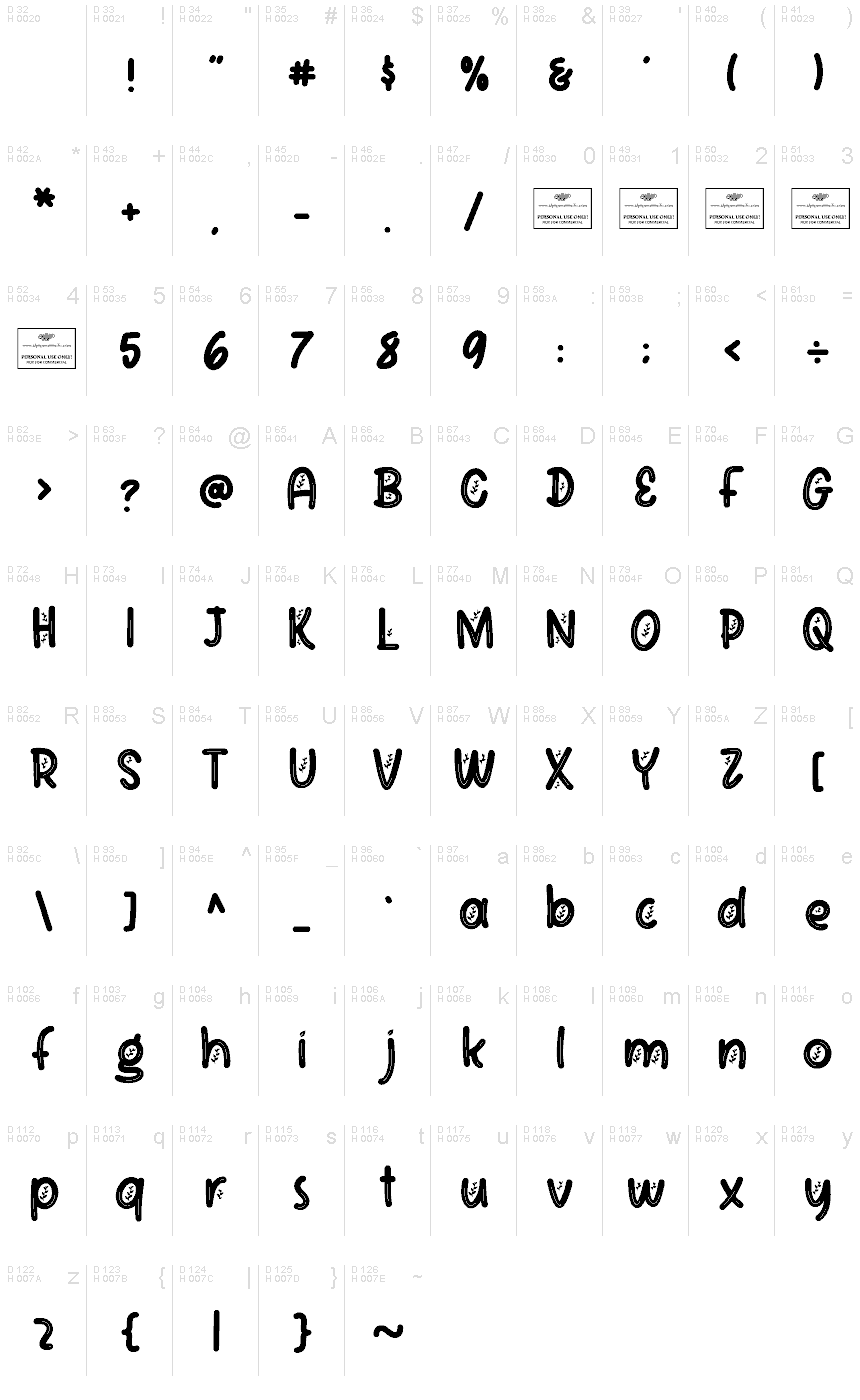
Olive Branch
Olive Branch font by Alpaprana Studio is a whimsical display font that carries a handcrafted essence. Decorative elements with an earthy motif grant this typeface a unique organic feel, if not an immediate recognition. Let its curves and swirls illustrate your original message as it should be!
Use this free decorative font for Instagram posts, cover designs, book titles, banner ads, or magazine headings. You can also add it to posters for the special events you organize or use it in the branding designs dedicated to artistic projects like logos or tattoos. Transition your website with its minimalist style and use Olive Branch for buttons and page headers!